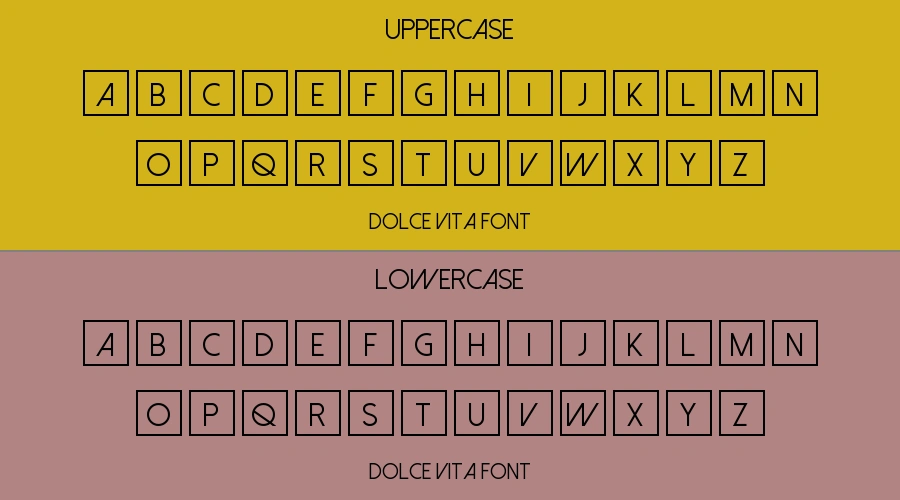
About Dolce Vita Font
Dolce Vita Font stands out for its distinctive combination of elegant spacing and brand distinction. Ideal for brand identities, it provides the functionality and aesthetic excellence that professional projects demand. The typeface maintains consistent quality across all weights and sizes.
Key features include refined perfect spacing and practical currency signs, enhancing typographic expression. In advertisements applications, Dolce Vita Font demonstrates exceptional archive stability. The terminal angle and research value contribute to its distinctive character and professional appeal.